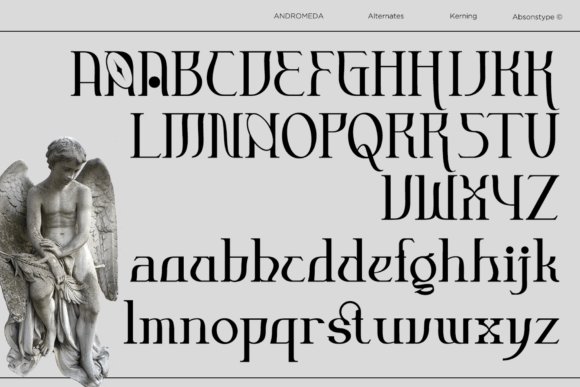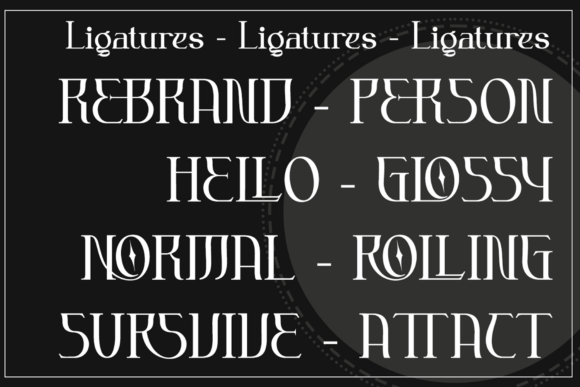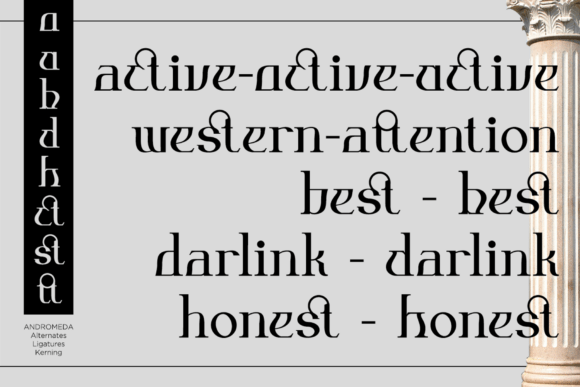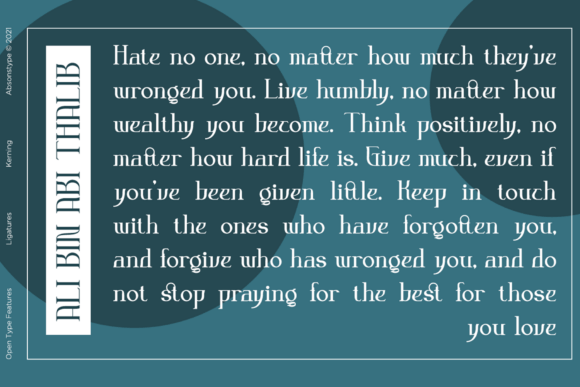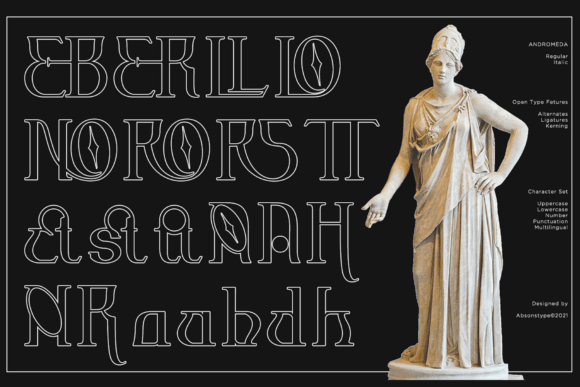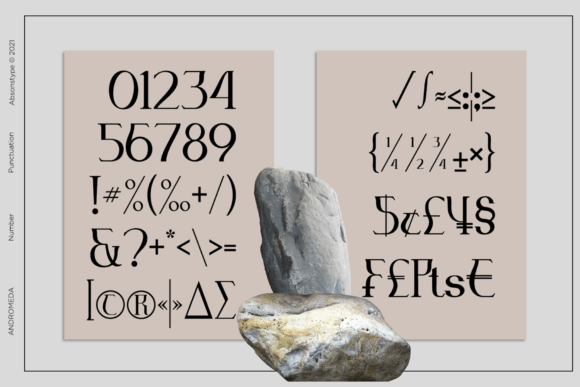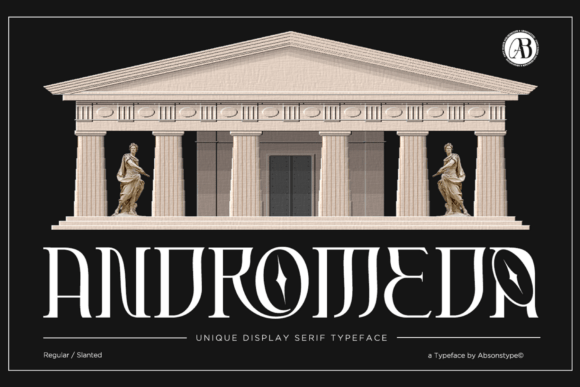
Introducing Andromeda Font: Elevate Your Design with Celestial Elegance
In the realm of typography, a well-crafted font can elevate a design from ordinary to extraordinary. For designers and crafters seeking a typeface that embodies both classical sophistication and modern edge, Andromeda Font is an exceptional choice. This bold and sophisticated display serif font seamlessly blends ancient elegance with contemporary flair, making it perfect for a wide range of creative projects.
The Essence of Andromeda Font
Andromeda Font is characterized by its tall, graceful forms and high contrast strokes, which evoke a sense of luxury and refinement. The font’s design is inspired by the cosmos, featuring cosmic-inspired ligatures that add a touch of modernity and whimsy. These distinctive elements come together to create a typeface that channels ancient majesty and modern flair, making it an ideal choice for designers seeking to create a lasting impression.
Design Features and Styles
Andromeda Font offers two primary styles: Regular and Slanted. The Regular style exudes classic sophistication, while the Slanted style adds a dynamic, modern twist. Both styles boast:
- Tall, graceful forms that command attention
- High contrast strokes that add depth and elegance
- Cosmic-inspired ligatures that infuse a sense of modernity
Ideal Applications for Andromeda Font
Andromeda Font’s versatility makes it suitable for a variety of design applications, including:
- Editorial Layouts: Elevate your magazine, newspaper, or book designs with Andromeda’s sophisticated and elegant feel.
- Luxury Branding: Create a lasting impression with Andromeda’s bold and refined aesthetic, perfect for high-end brands and luxury products.
- Posters: Make a statement with Andromeda’s striking and attention-grabbing design.
- Logo Design: Establish a strong brand identity with Andromeda’s unique and memorable typography.
Why Choose Andromeda Font?
When it comes to selecting a font for your design project, Andromeda Font stands out for several reasons:
- Unique Blend of Styles: Andromeda’s fusion of classical elegance and modern edge sets it apart from other typefaces.
- Versatility: With Regular and Slanted styles, Andromeda Font adapts to various design needs and creative visions.
- High-Quality Design: Crafted with attention to detail, Andromeda Font ensures a professional and polished look for your designs.
Tips for Using Andromeda Font Effectively
To maximize the impact of Andromeda Font in your designs, consider the following tips:
- Experiment with Sizes: Andromeda Font’s bold and elegant design makes it suitable for use at various sizes, from headlines to body text.
- Pair with Complementary Fonts: Combine Andromeda Font with simpler typefaces to create visual interest and hierarchy in your designs.
- Play with Ligatures: Take advantage of Andromeda’s cosmic-inspired ligatures to add a touch of personality to your text.
Andromeda Font is a powerful tool for designers and crafters seeking to elevate their creative projects with a bold and sophisticated typeface. Its unique blend of classical elegance and modern edge, combined with its versatility and high-quality design, make it an exceptional choice for a wide range of applications. Whether you’re working on editorial layouts, luxury branding, posters, or logo design, Andromeda Font is sure to leave a lasting impression.